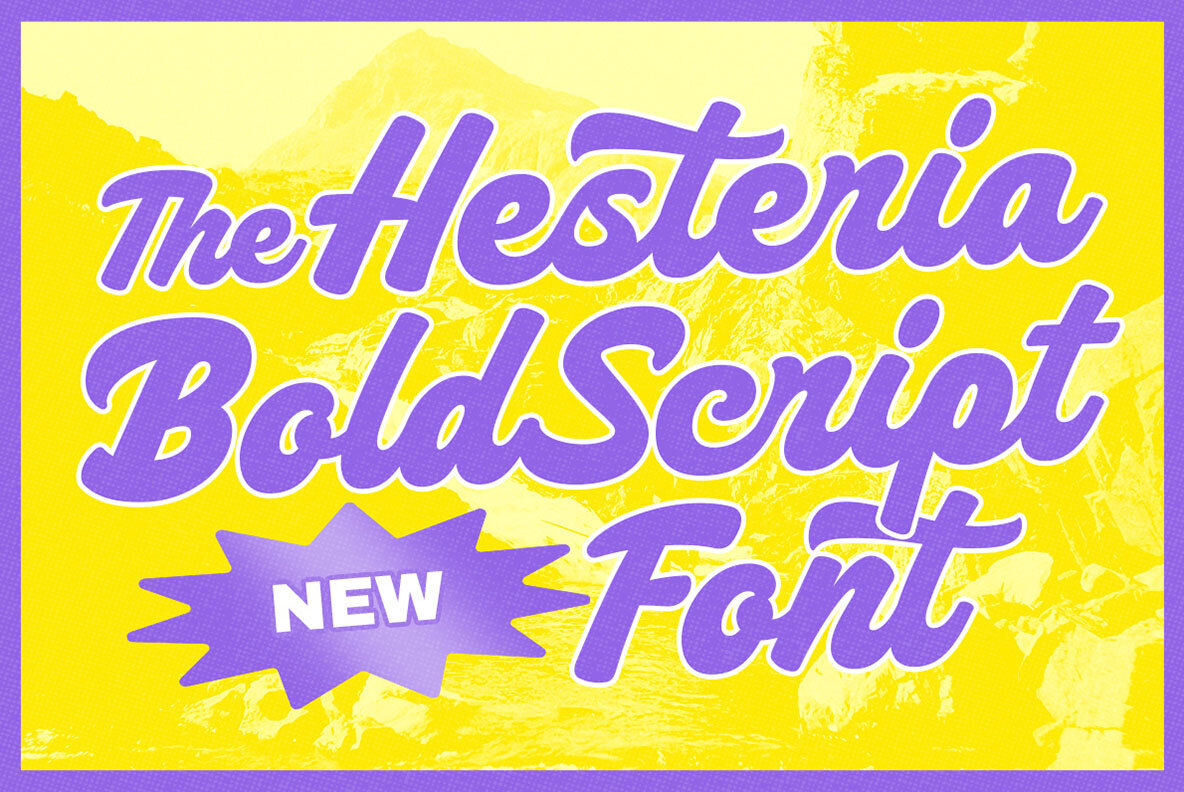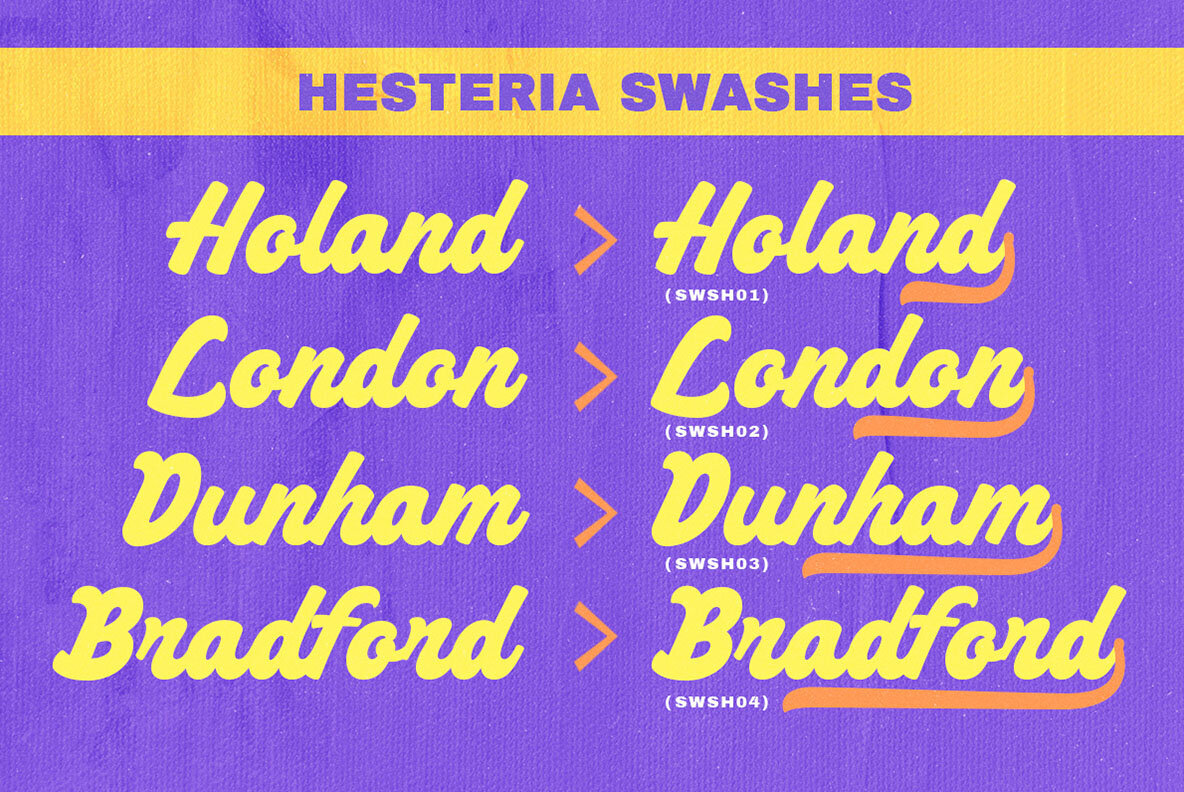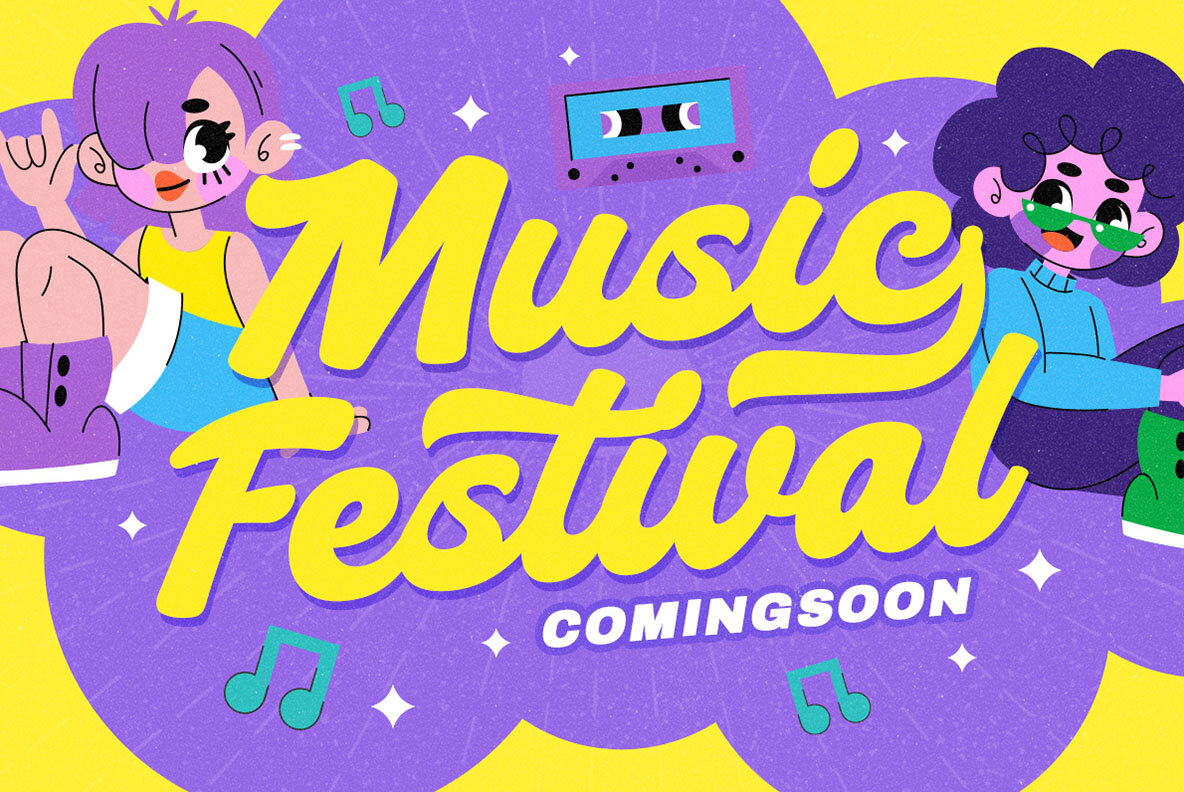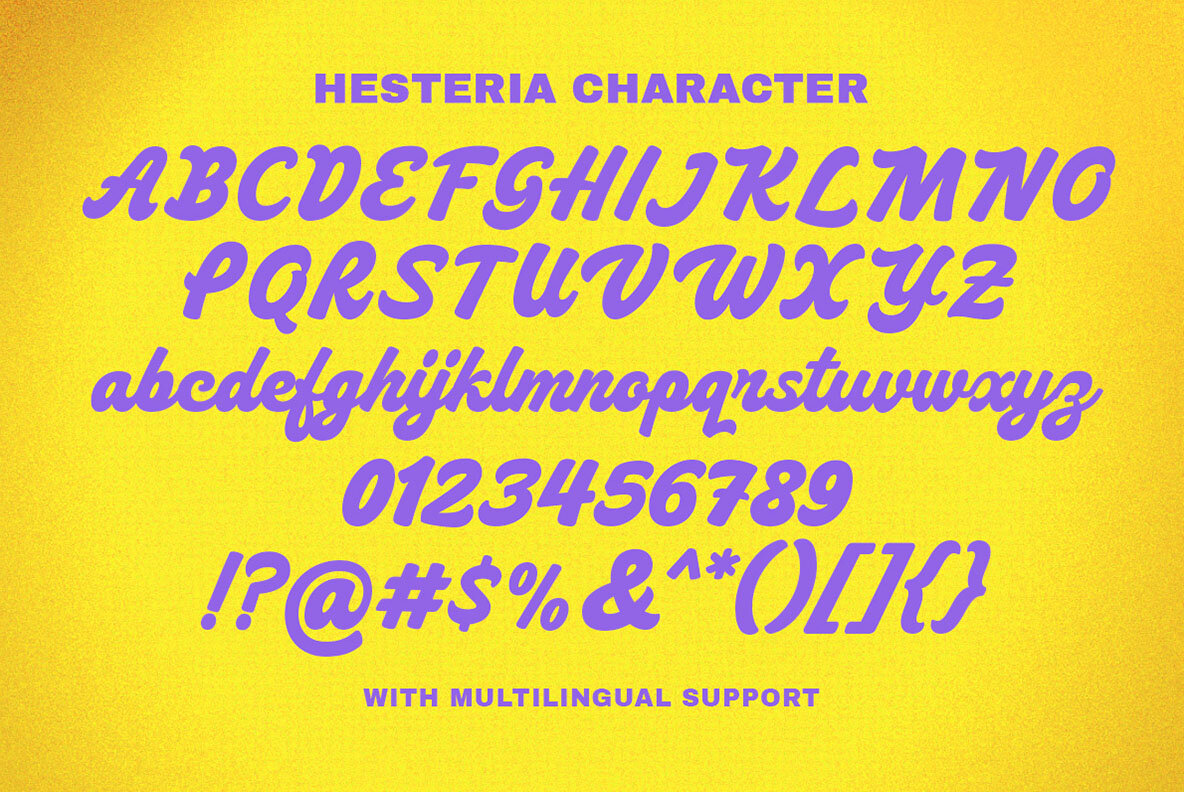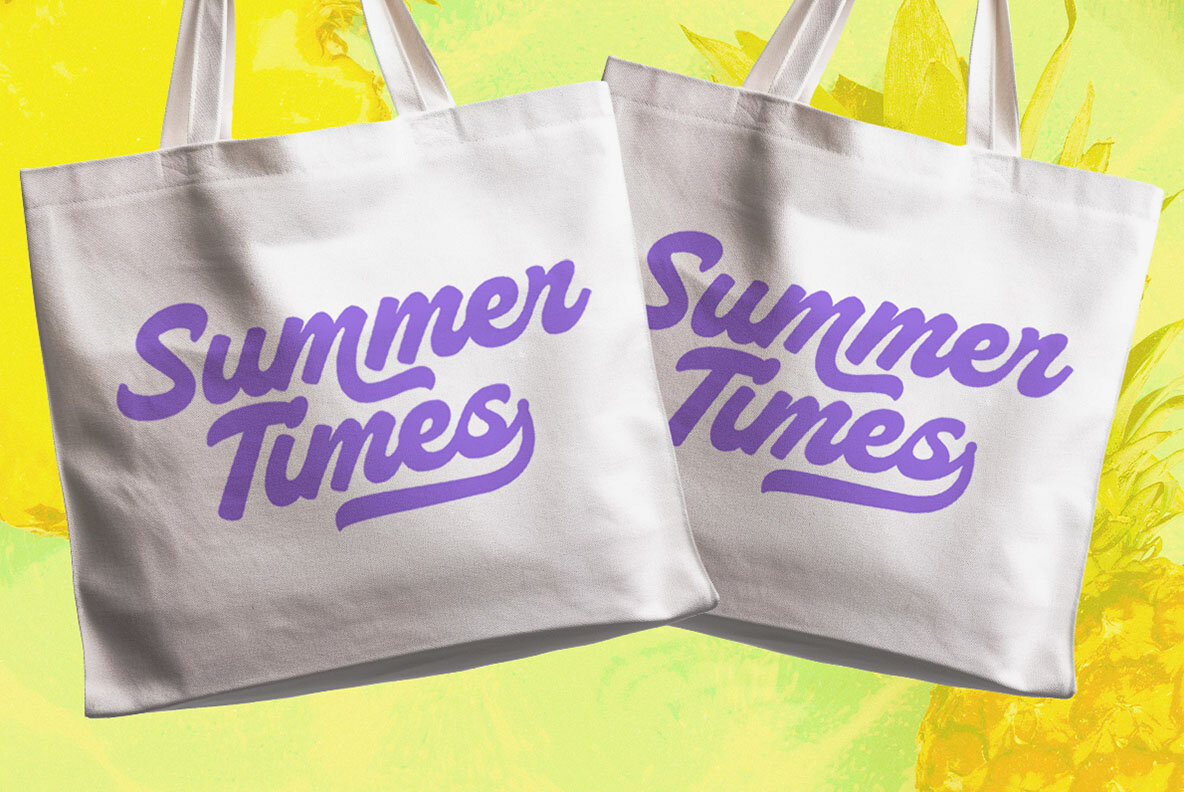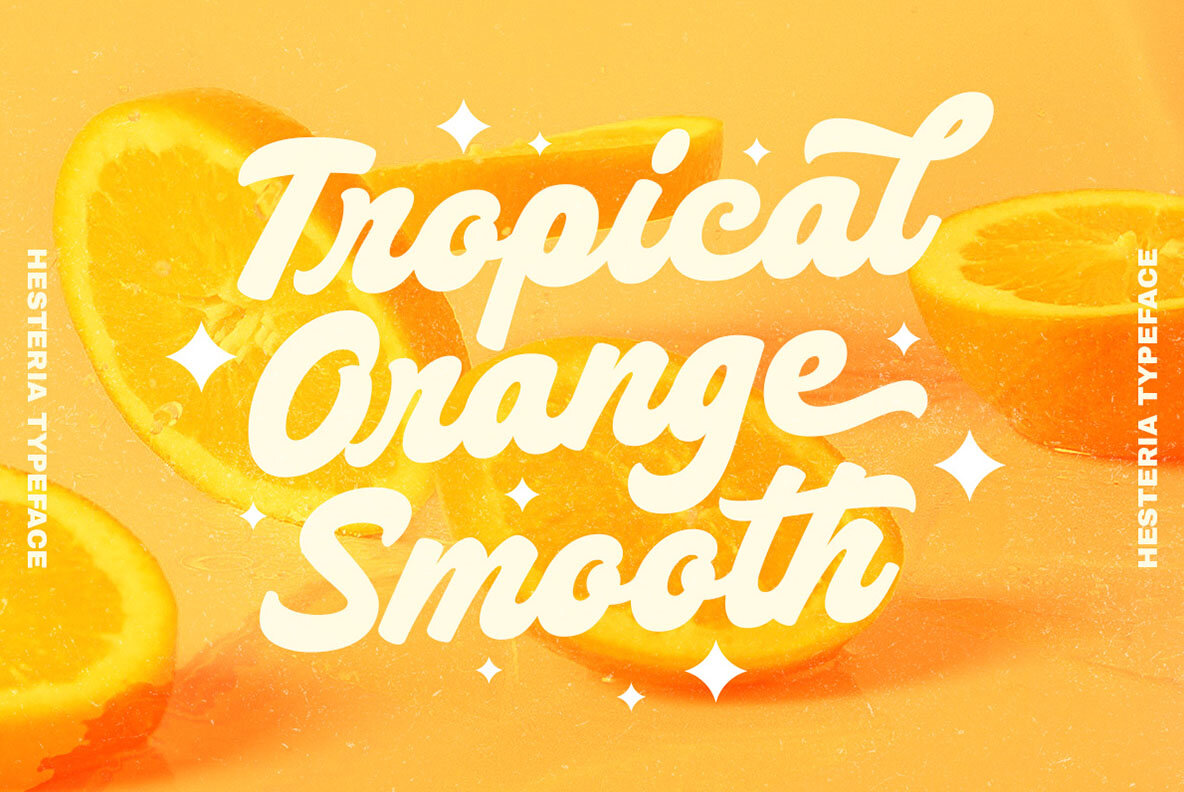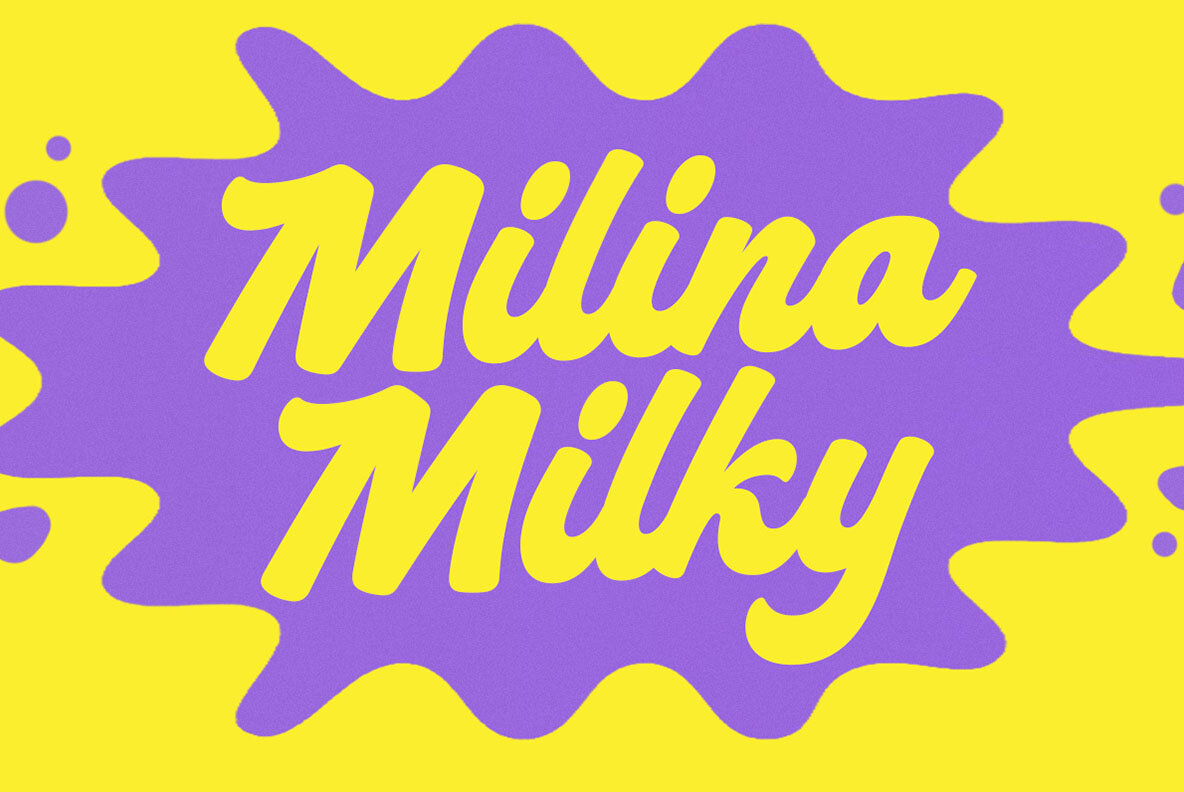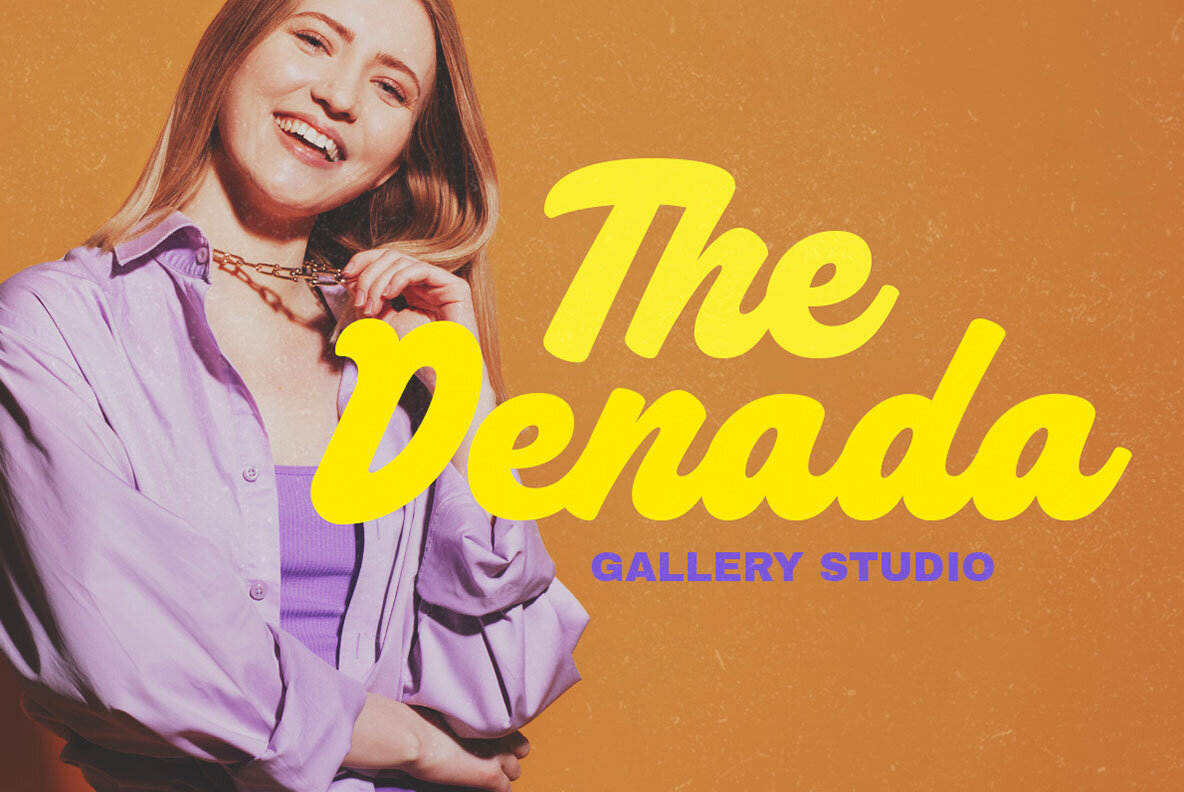
Hesteria Font
Hesteria Regular
Prepare to be transported back to the groovy 60s with Hesteria, a remarkably stylish and robust script font, handcrafted by the creative wizards at Letterhend Studio. Bibliophiles, journalists, and graphic designers alike will relish this knee-deep-in-nostalgia font that breathes vivaciousness into any creation. It's the perfect fit for a spectrum of formal settings-from captivating logos and jazzy magazines to personalized wedding cards and inviting labels. + Perfect for Logos and Magazines Resonate with the retro era in vibrant style by choosing Hesteria and enjoy a typographic experience like no other. Make your designs matter!Introducing "Hesteria" - A Retro Bold Script Font for Every Creative Mind
+ Ideal for Wedding and Greeting Cards
+ Suitable for Invitations and Labels